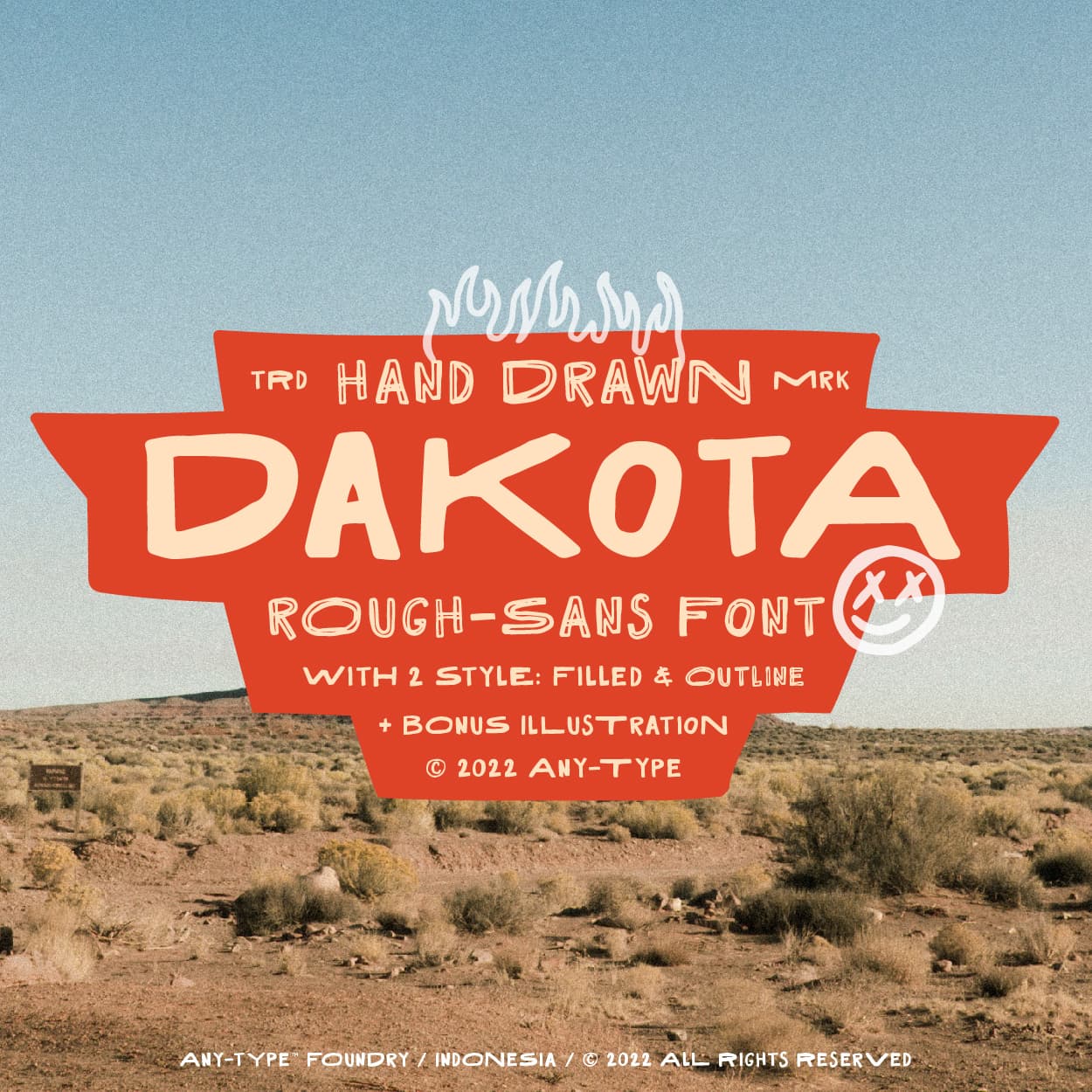
<p>This customized vintage font Dakota, has an authentic western feel with its handwritten style. It's perfect for designing anything that requires a unique touch, especially if you want your design to have some extra flair! With 2 different styles available (filled & outline), this versatile typeface works well both online or off-line - no matter what form it takes on--it'll look great in posters but also logos/social media posts alike<br><br>In this package:<br>- Dakota Rough Regular (OTF / TTF)<br>- Dakota Rough Outline (OTF / TTF)<br>- Dakota Doodle (OTF / TTF)<br>- Bonus: Dakota Doodle Illustration (EPS and AI)</p>